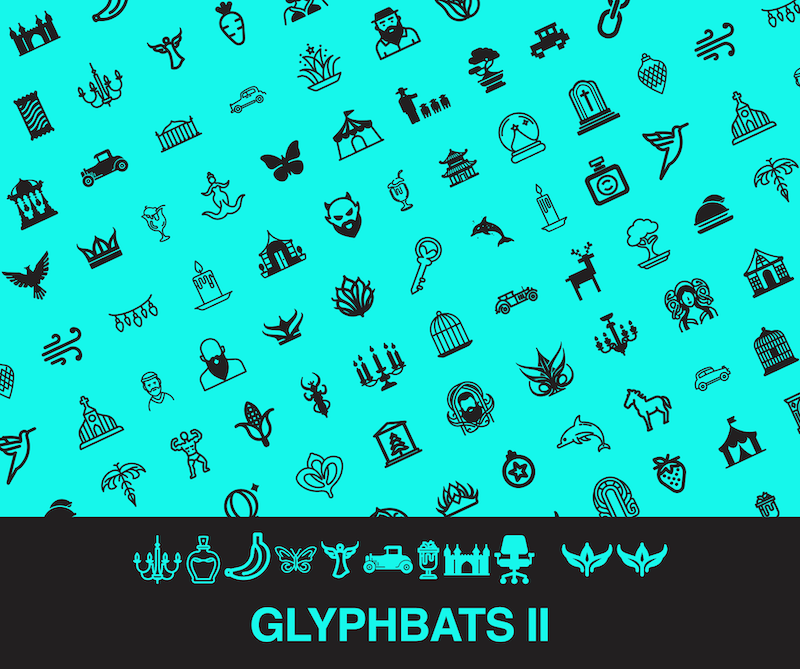
Glyphbats II
Introducing Glyphbats II, the second set of icon dingbats from FontKawaiiCo. This font is available on dafont for personal use only. For commercial use of any of these icons, please contact us. Here is the full list of 94 icons included in Glyphbats II with each key that they're mapped to: A - Cute Parfait B - Elegant Car C - Greenhouse D - Christmas Cottage E - Elegant Building F - Candy Bar G - Chandelier I H - Angel I - Elf Mask J - Fat Carrot K - Flipper L - Perfume Bottle M - 1930s Car N - Spindly Gate O - Cool Portal P - Wiry Butterfly Q - Strawberry R - 8 Bit Deer I S - Office Chair T - Castle U - Big Tent V - Decoration W - Perfect Tent X - Chandelier II Y - Banana Z - Edgy Corn Cob a - Lovely Parfait b - Elegant Bonsai c - Sparkly Dolphin d - Candlestick e - Snow Globe f - Fragrance g - Hummingbird h - Church i - Dripping Candle j - Hipster k - Bearded Man l - Elegant Crown m - Wisteria n - Conveyor Belt Sushi o - Regency Cottage p - Memorial q - Circus Tent r - Monument s - Pagoda t - Ornament u - Fairy Lights v - 8 Bit Deer II w - Amish Man x - Key y - Wind z - Lotus